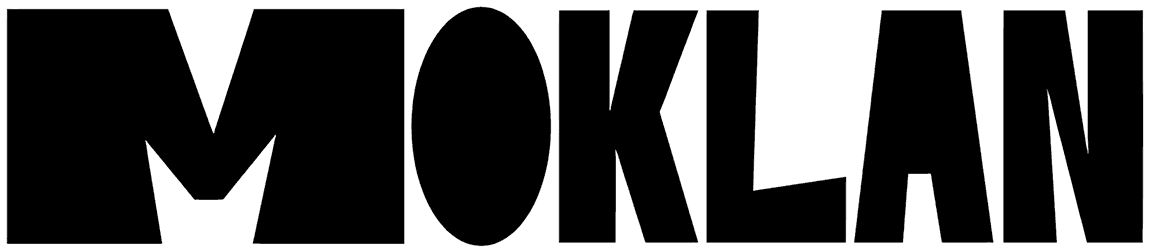
Moklan Font
Meet the Moklan font. Its characters look like the words of a cool comic, bold and untidy. This English font has the potential to add a playful vibe to your intended designs, like a T-shirt or a platform game scene. Two versions of this bold sticker font and its two sets of capitals will cover the lack of lowercase letters.